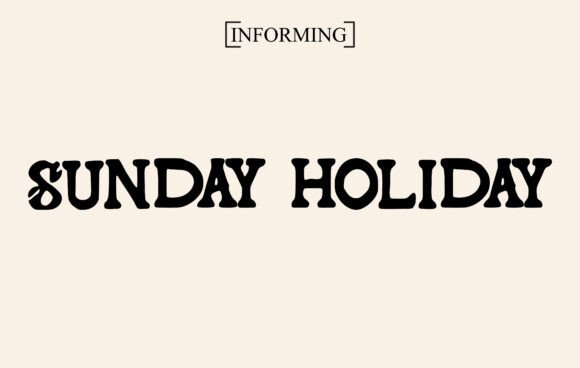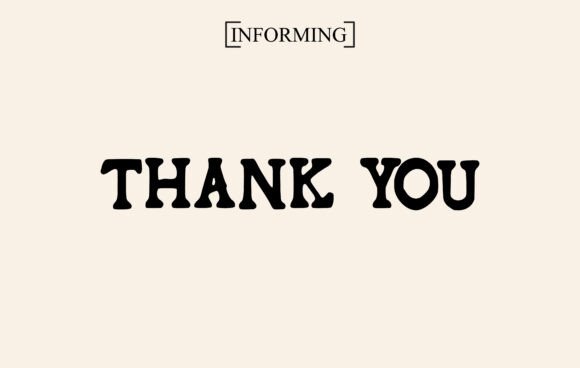
Discover the Versatility of Hana Font: Elevate Your Designs to New Heights
In the world of typography, a font can make or break a design. It’s the foundation upon which creativity is built, and the right choice can elevate a project from ordinary to extraordinary. This is where Hana Font comes into play – a meticulously crafted typeface designed to be a true favorite among designers and crafters. With its exceptional legibility and stunning appearance, Hana Font is poised to take your creative ideas to the highest level, whether you’re working on magazine headlines, t-shirts, social media content, branding, wedding invitations, cards, or any other design project.
Legibility and Versatility: The Hallmarks of Hana Font
One of the standout features of Hana Font is its remarkable legibility. In today’s fast-paced digital age, where attention spans are short, ensuring that your message is conveyed clearly and effectively is paramount. Hana Font achieves this with ease, making it an excellent choice for both title and body text. Its clean lines and well-balanced design ensure that your text is not only readable but also visually appealing, engaging your audience and enhancing the overall user experience.
The versatility of Hana Font is another aspect that sets it apart. This font is not limited to a specific style or medium; rather, it’s incredibly adaptable, making it perfect for a wide range of applications. Whether you’re designing a bold magazine headline, a stylish t-shirt, an engaging social media post, a professional brand identity, a beautiful wedding invitation, or a heartfelt card, Hana Font can do it all. Its flexibility allows designers to experiment with various design elements, confident in the knowledge that their font will deliver.
Why Designers and Crafters Love Hana Font
Designers and crafters often find themselves on the lookout for fonts that can bring a unique touch to their projects without compromising on readability or style. Hana Font checks all these boxes and more. Here are a few reasons why it has become a favorite among creative professionals:
- Exceptional Readability: Hana Font’s design prioritizes readability, ensuring that your message is communicated effectively, regardless of the medium.
- Aesthetic Appeal: With its elegant and clean design, Hana Font adds a touch of sophistication to any project, making it stand out.
- Versatility: From digital platforms to print materials, Hana Font adapts seamlessly, making it a go-to choice for a variety of design needs.
- Creative Freedom: Hana Font’s neutral yet stylish design gives designers the freedom to experiment with different creative ideas without the limitations of a more rigid typeface.
How to Make the Most of Hana Font in Your Designs
To truly harness the potential of Hana Font, consider the following tips:
- Mix and Match: Don’t be afraid to experiment with different sizes, weights, and styles of Hana Font to create visual hierarchy and add depth to your designs.
- Pair it Wisely: While Hana Font is stunning on its own, pairing it with complementary fonts can enhance its beauty and create interesting contrasts.
- Play with Colors: The right color scheme can elevate Hana Font from good to great. Experiment with different colors to find the perfect match for your design.
- Consider the Context: Always consider the context in which your design will be viewed. Ensure that Hana Font aligns with the tone and message of your project.
Hana Font is more than just a typeface – it’s a tool for creativity, designed to help designers and crafters bring their ideas to life. Its exceptional readability, aesthetic appeal, and versatility make it an invaluable asset for anyone looking to elevate their designs. Whether you’re a professional designer or a DIY enthusiast, Hana Font has the potential to take your creative projects to new heights. So why wait? Discover the possibilities with Hana Font today and see how it can transform your designs.